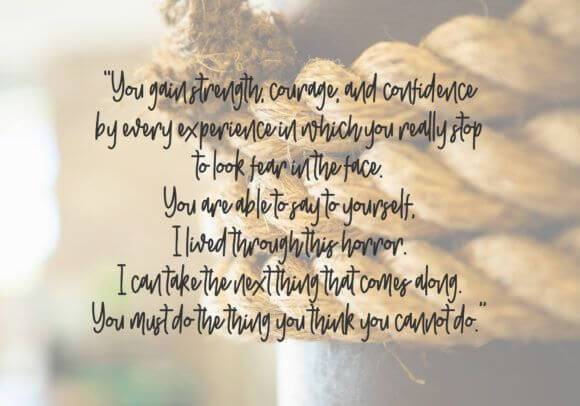
Orlando Handwritten Font
Orlando Handwritten Font is a luxury cursive script typeface that works well for logos and typography projects of all kinds. It was created by Anxiety Studio, a typeface designer. This font is one-of-a-kind, with a single line that adds interest and intrigue to your project. Orlando typeface also includes alternates and ligatures, allowing you to differentiate your work and projects from the competition.
The Orlando Font Script is included, as well as swashes and international support for most Western languages. There are 550 glyphs in the Orlando Font Script. This one should instantly elevate your designs to the next level of professionalism and awe! You’ll be a great professional and ready to create modern designs like ads, sales, logos, branding, posters, weddings, and social media text overlays in just a minute. The font is available in a variety of formats, including Orlando. OTF, Orlando.TTF, and Orlando.Web fonts are all available.
Orlando is a lighthearted and energetic script font. It will give any design idea a genuine zing! This typeface is appropriate for a variety of applications, including projects, logos, branding, mockups, websites, packaging, headlines, clothing, posters, quotes, greeting cards, business cards, wedding invites, and more. This font comes with a customizable logo bonus.